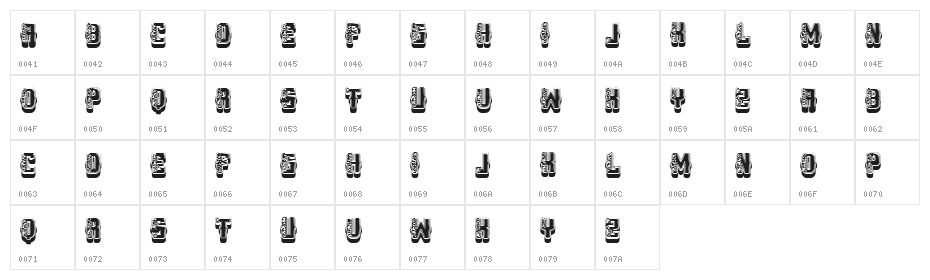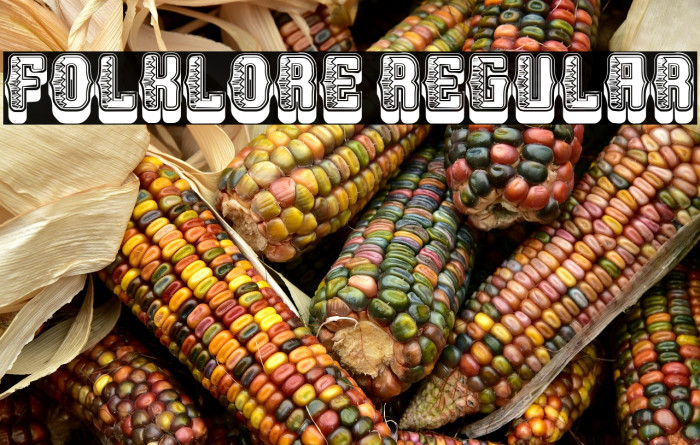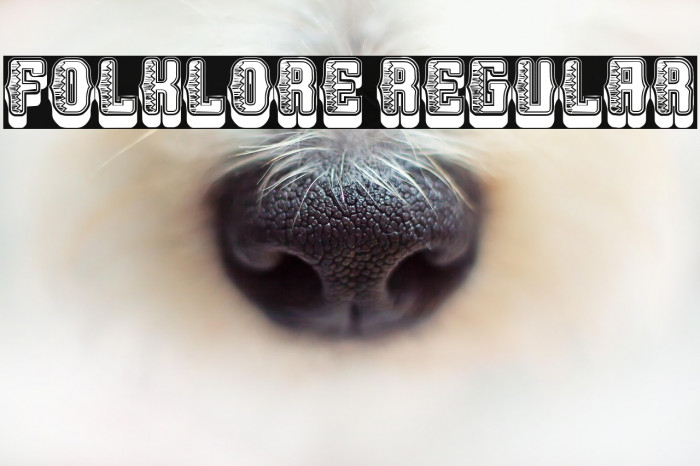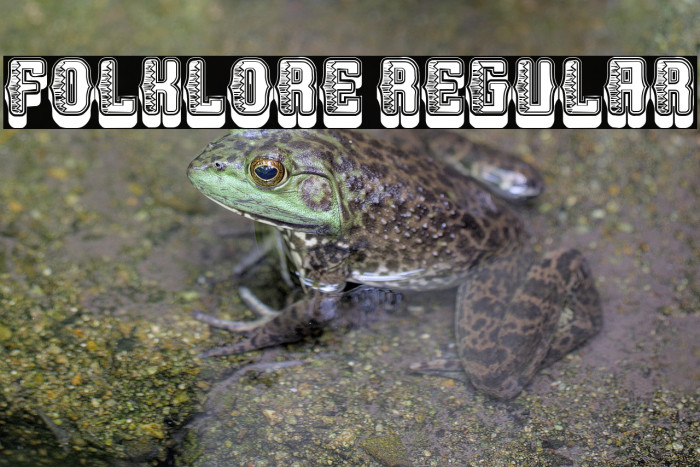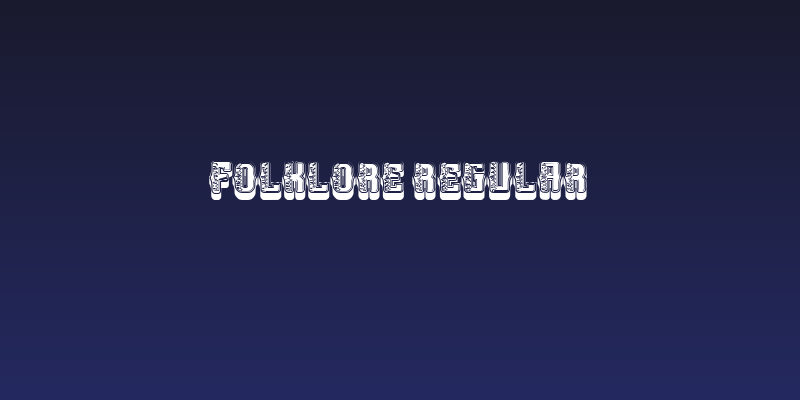
Folklore Regular Font
Folklore Regular Description
This font features a bold, decorative style with intricate patterns inside each character, creating a textured and layered appearance. The letters are outlined with a thick black border, giving them a three-dimensional effect. The design incorporates a mix of geometric and organic shapes, adding a unique and artistic flair. The uppercase letters are consistent in height and width, providing a uniform look across the alphabet. This font is visually striking and commands attention, making it suitable for creative and expressive projects.
| Proposed Projects | Ideal for posters, album covers, event invitations, and any project requiring a bold, artistic statement. |